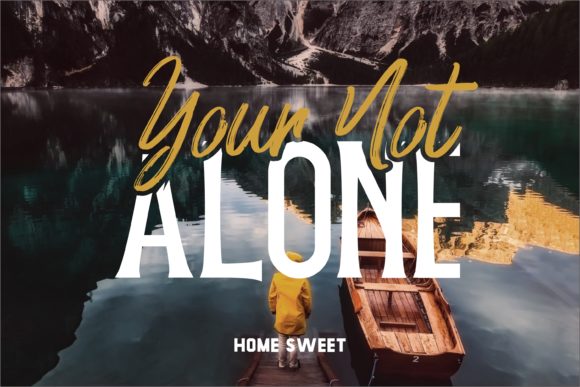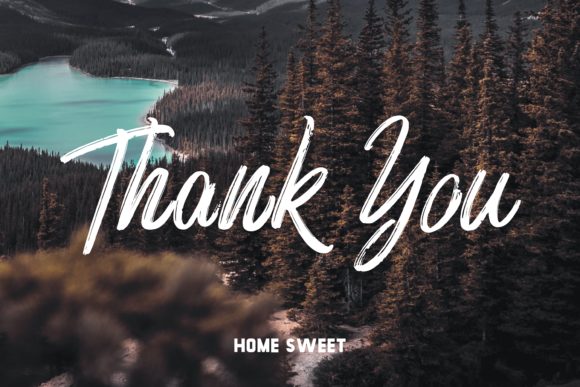
Naybrushy Font
About Naybrushy Font
Naybrushy is an amazing and powerful handwritten font with a bold twist. It will add a powerful feel to any design project!